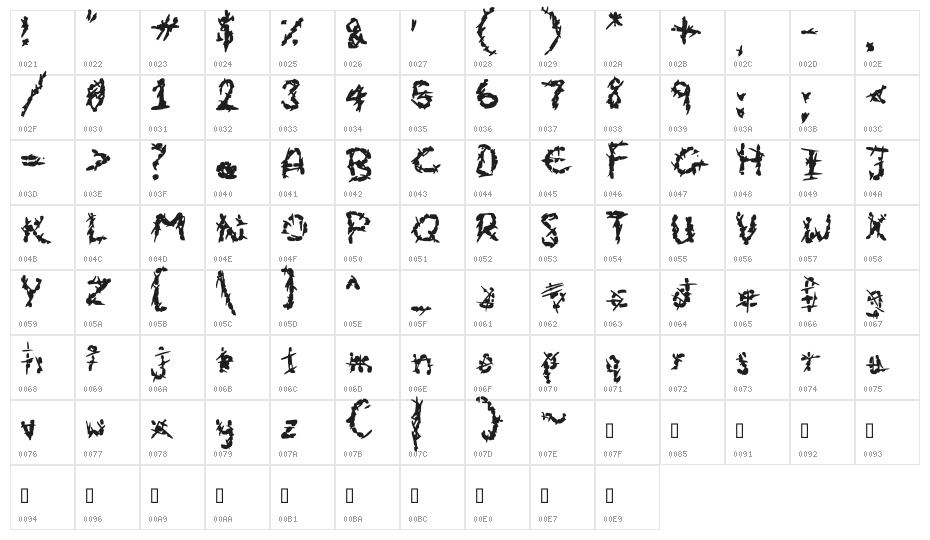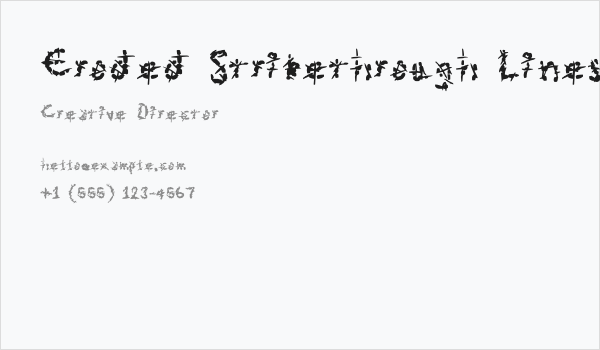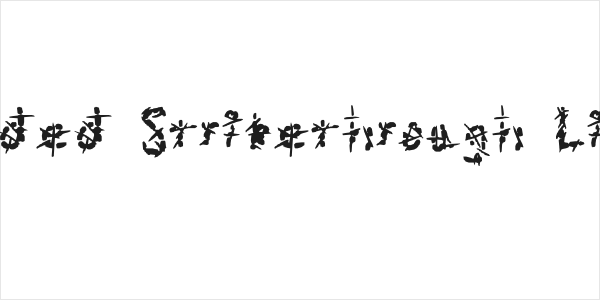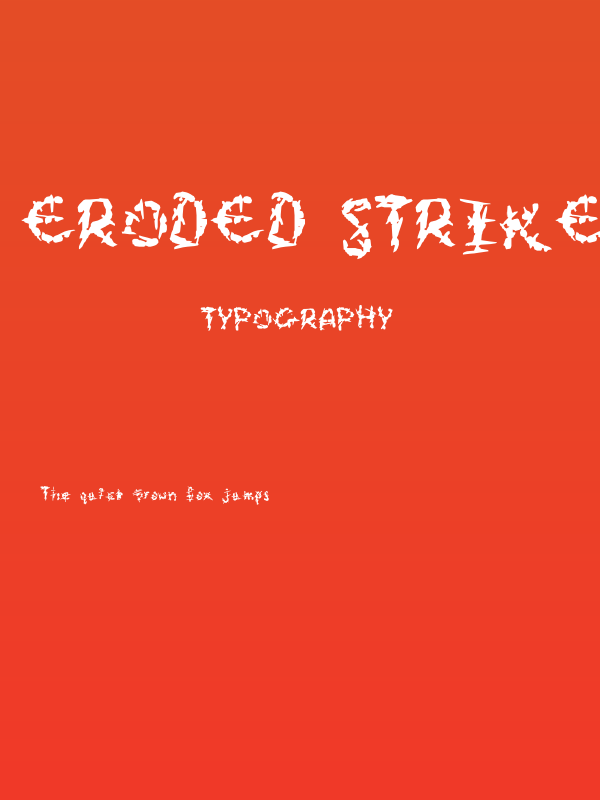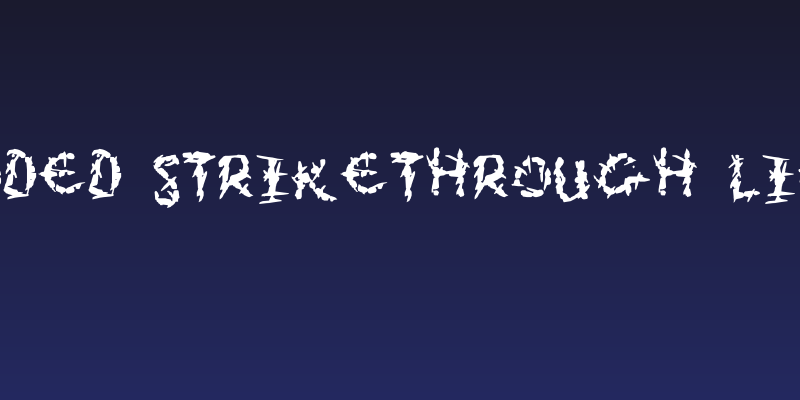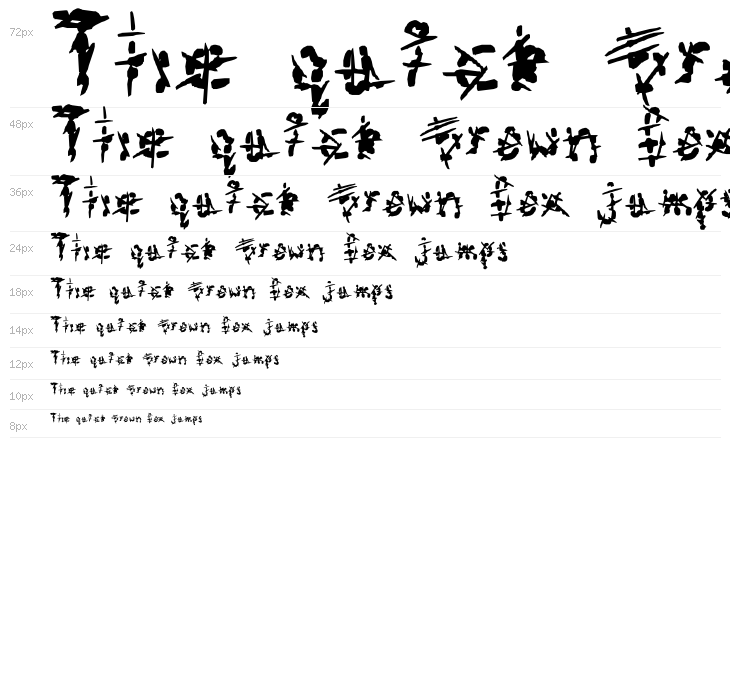
Eroded Strikethrough Lines Font
Eroded Strikethrough Lines Description
This font features a highly distressed and eroded appearance, with each character appearing as if it has been weathered or corroded over time. The letters are bold and jagged, with rough edges and an irregular, chaotic style. The strikethrough lines add an extra layer of complexity, giving the font a rebellious and edgy feel. This unique design makes it stand out, making it suitable for projects that require a strong visual impact. The numbers and special characters follow the same distressed theme, ensuring consistency throughout the typeface.
| Overall Style | Edgy, Rebellious, Chaotic |
| Proposed Projects | Ideal for album covers, horror movie posters, graffiti art, or any project needing an edgy, rebellious aesthetic. |